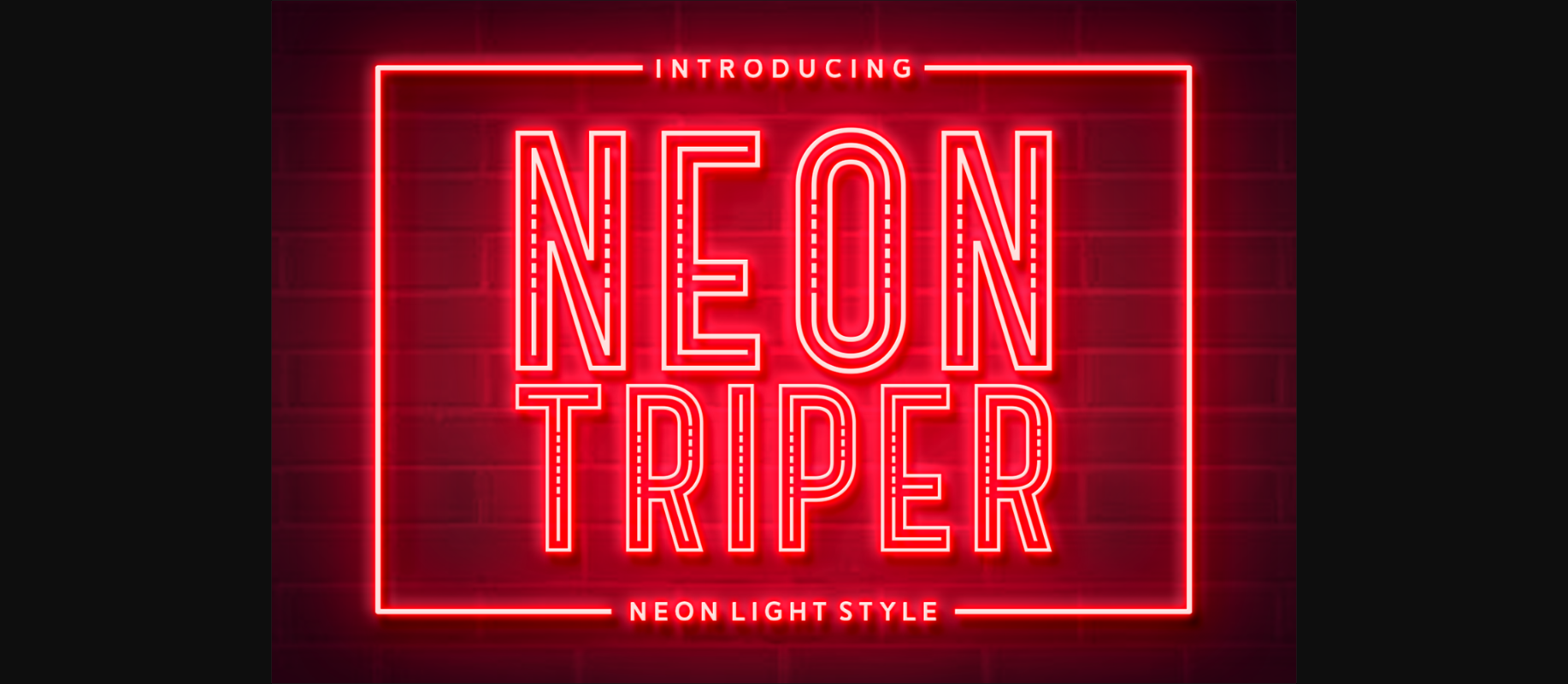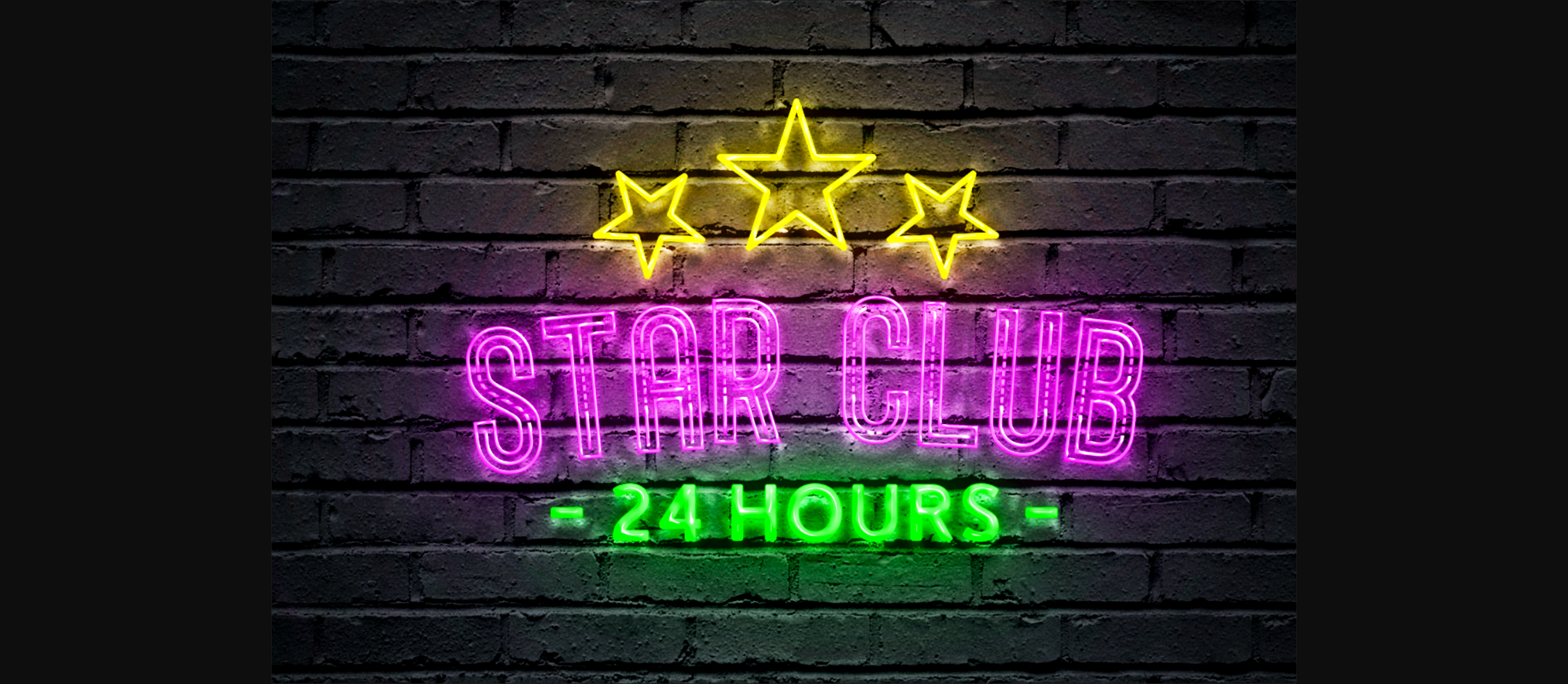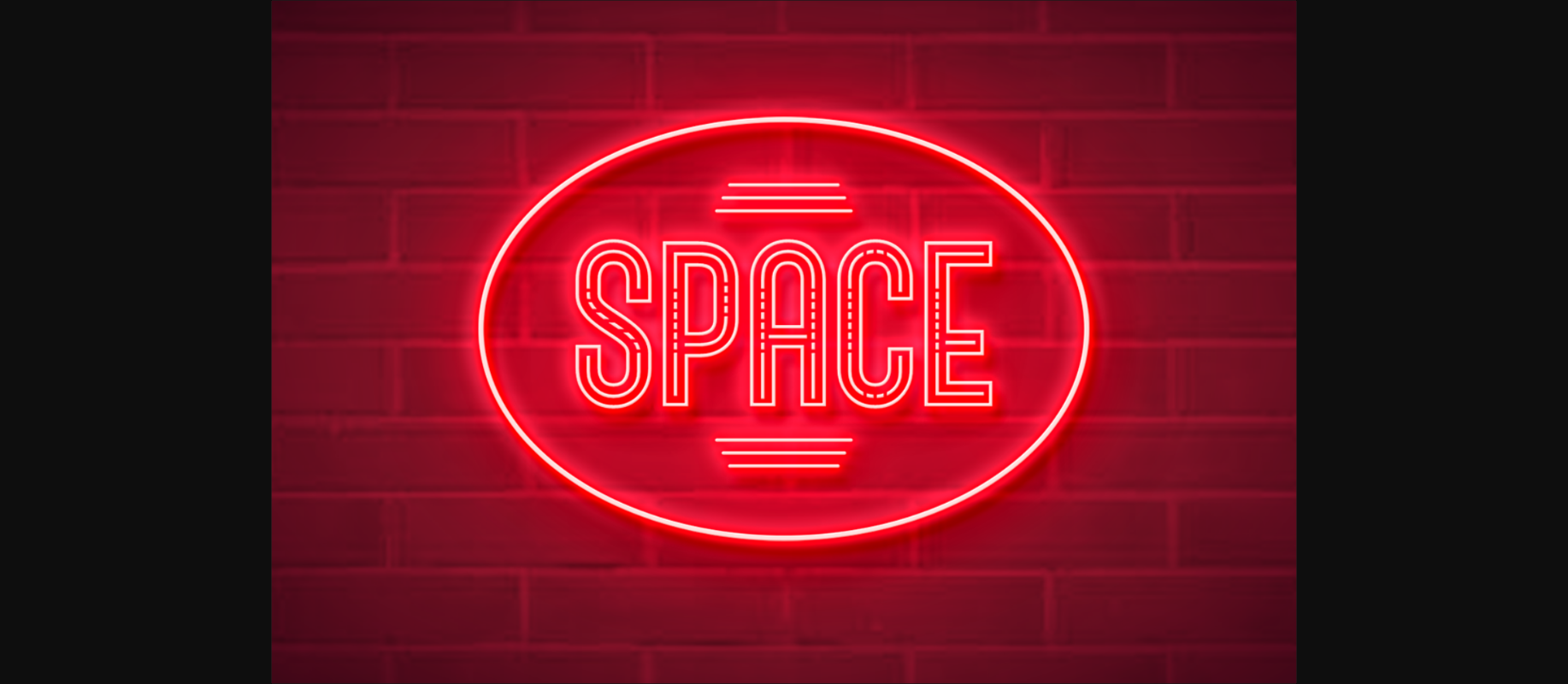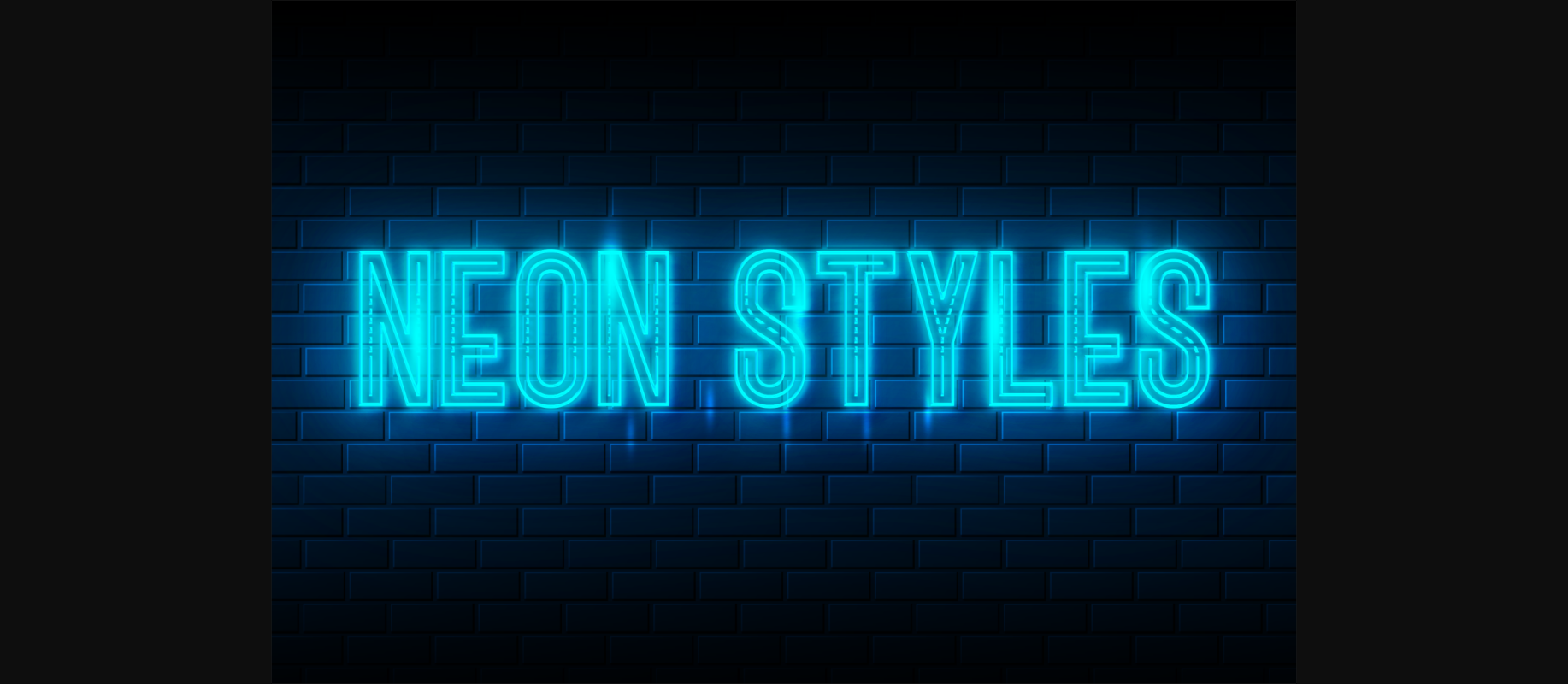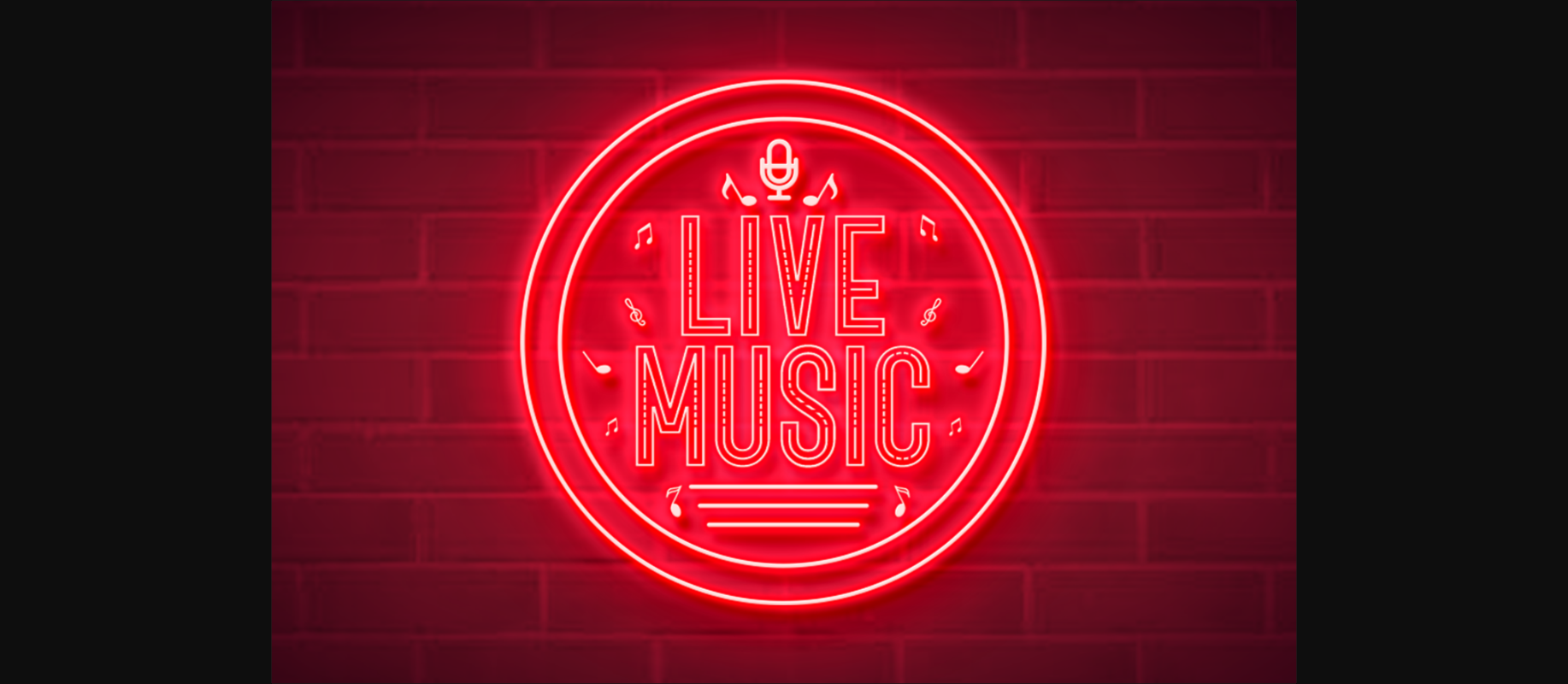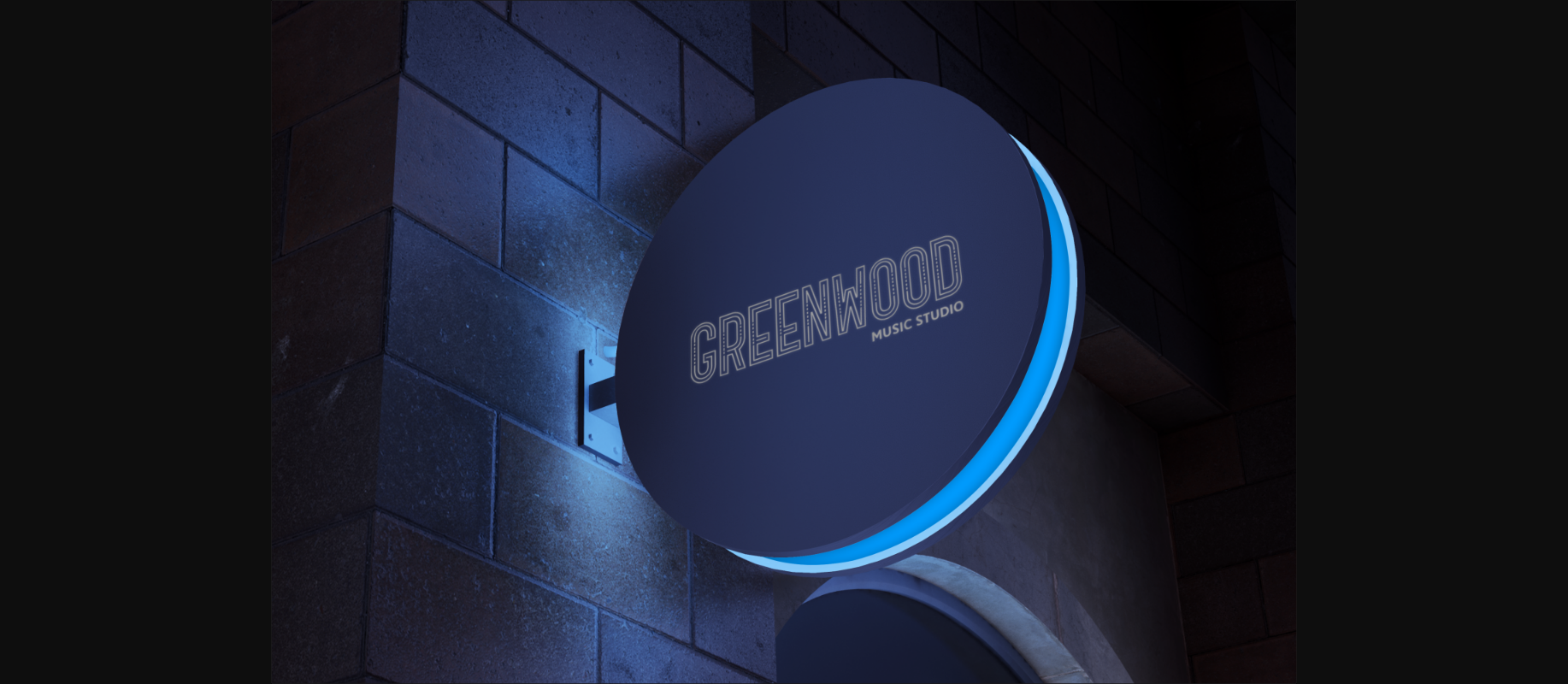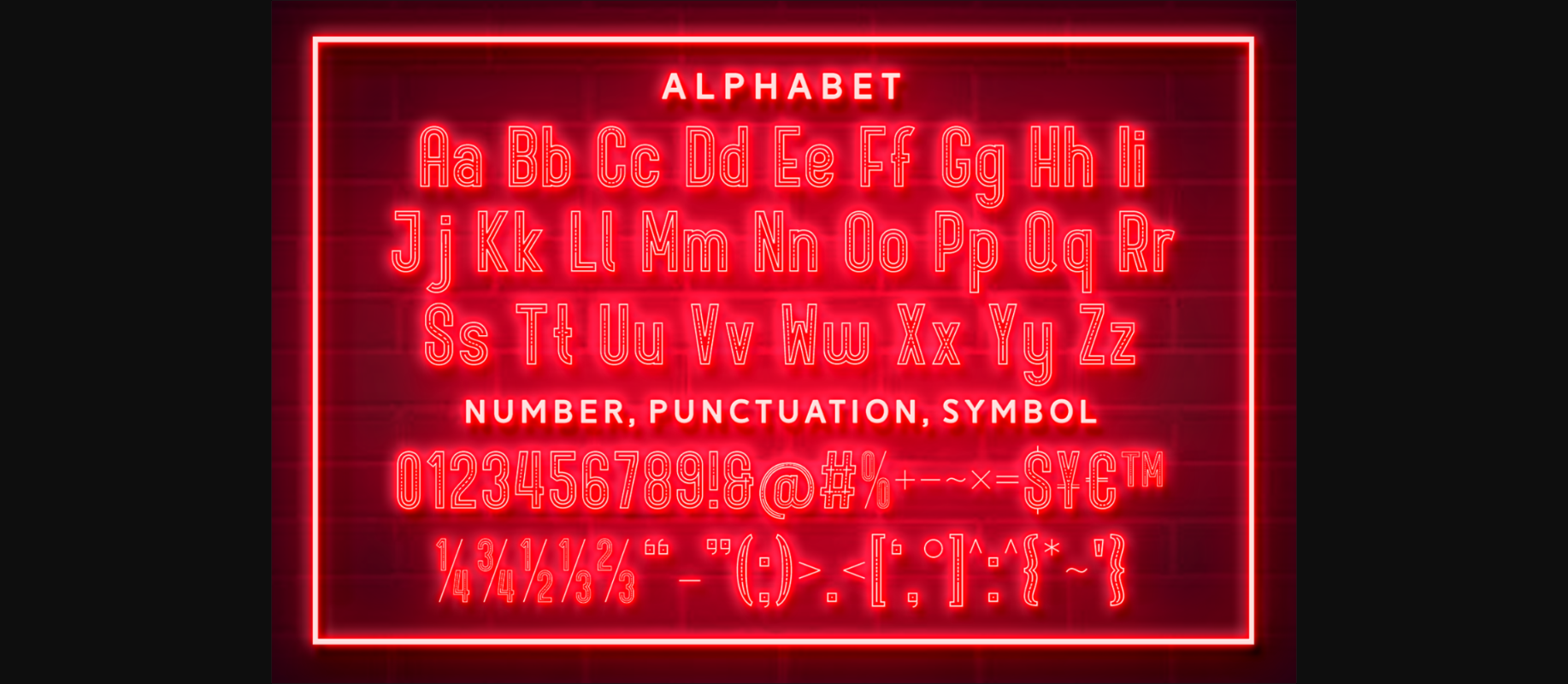
Neon Triper Font
About Neon Triper Font
Neon Triper is a decorative font featuring bold and bright neon letters, perfect for adding a futuristic and eye-catching touch to your designs. Its sleek and modern style makes it perfect for advertisements, posters, and digital media. The font’s unique glow effect will make your designs pop and stand out from the crowd.